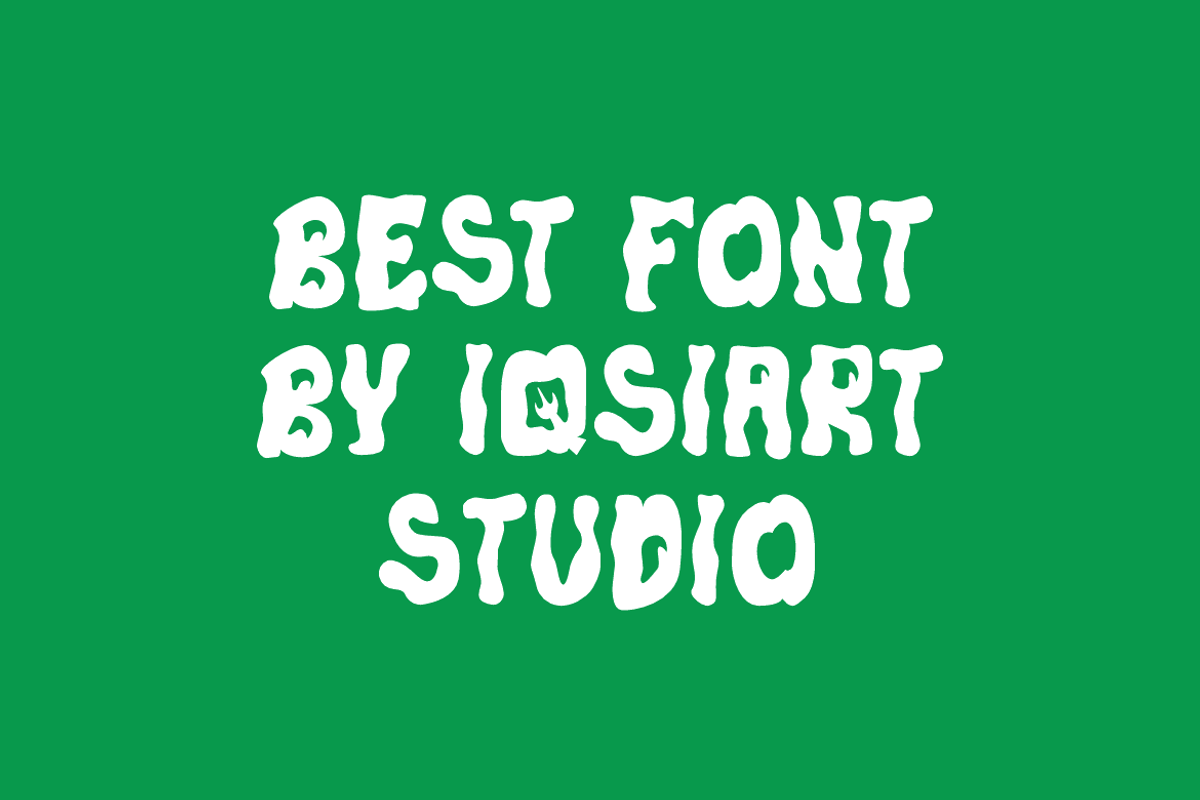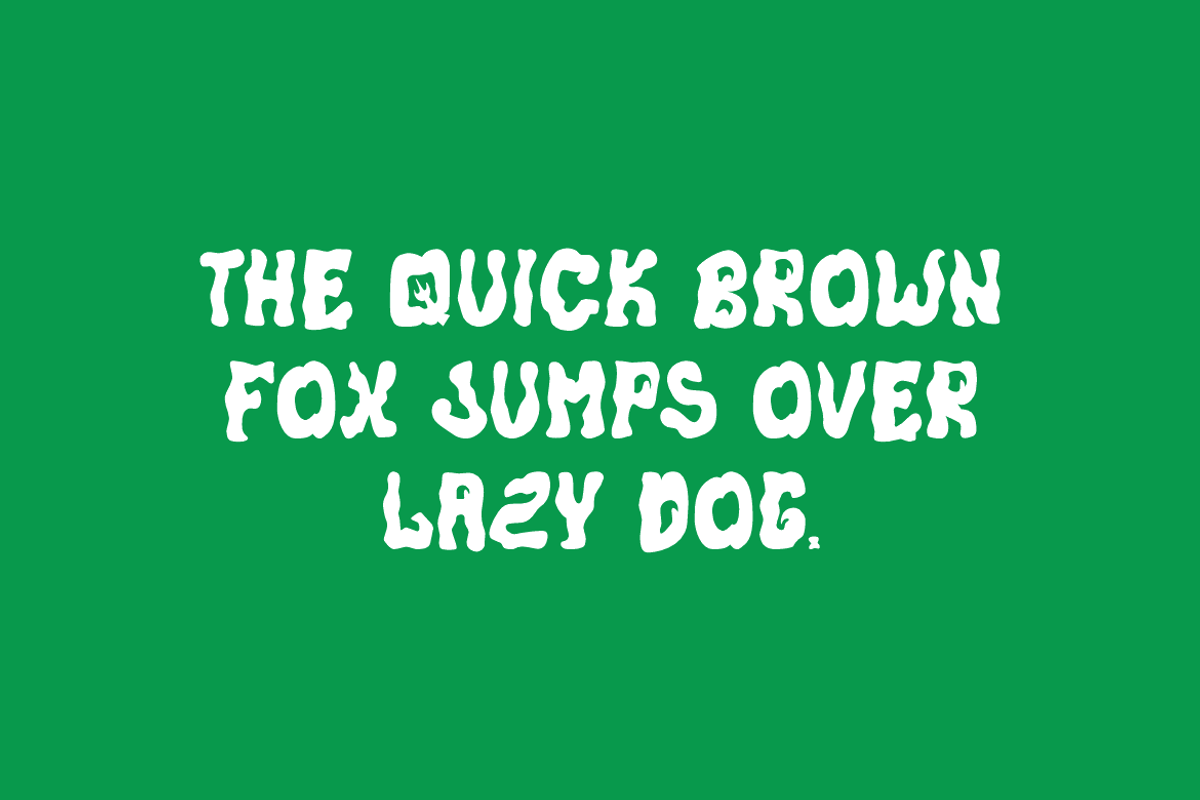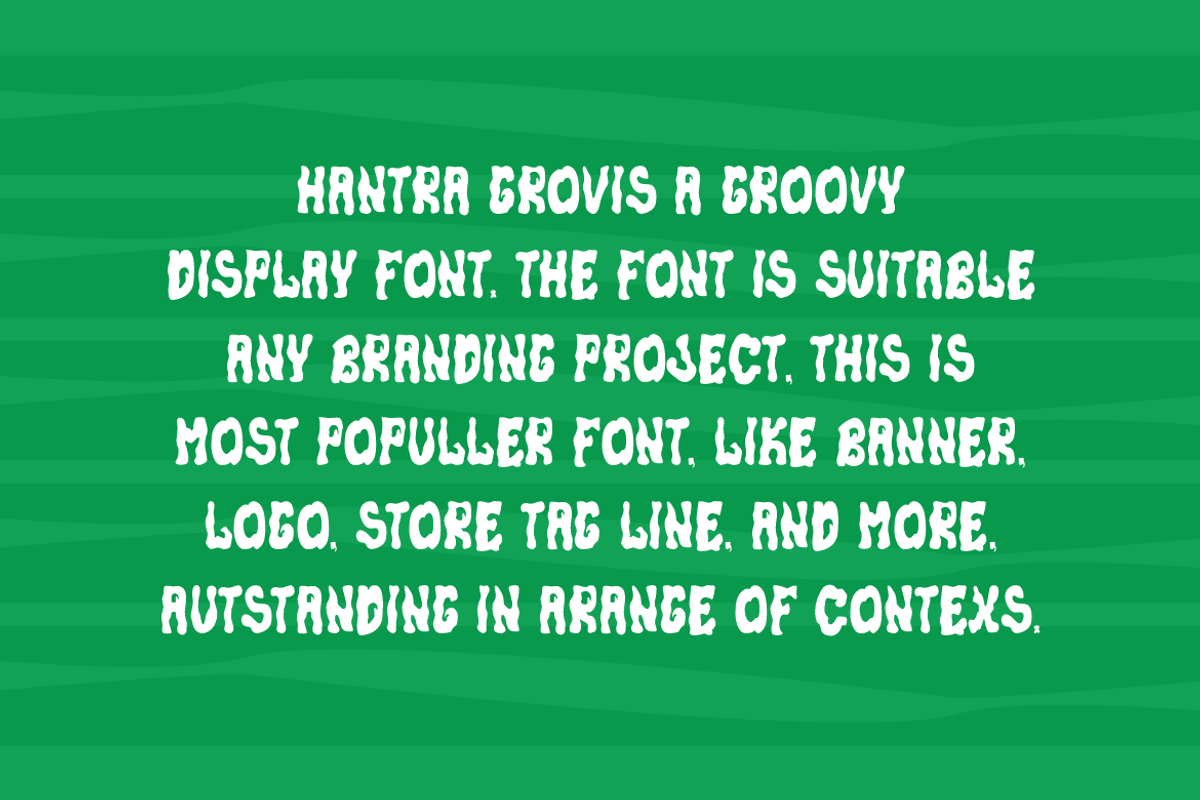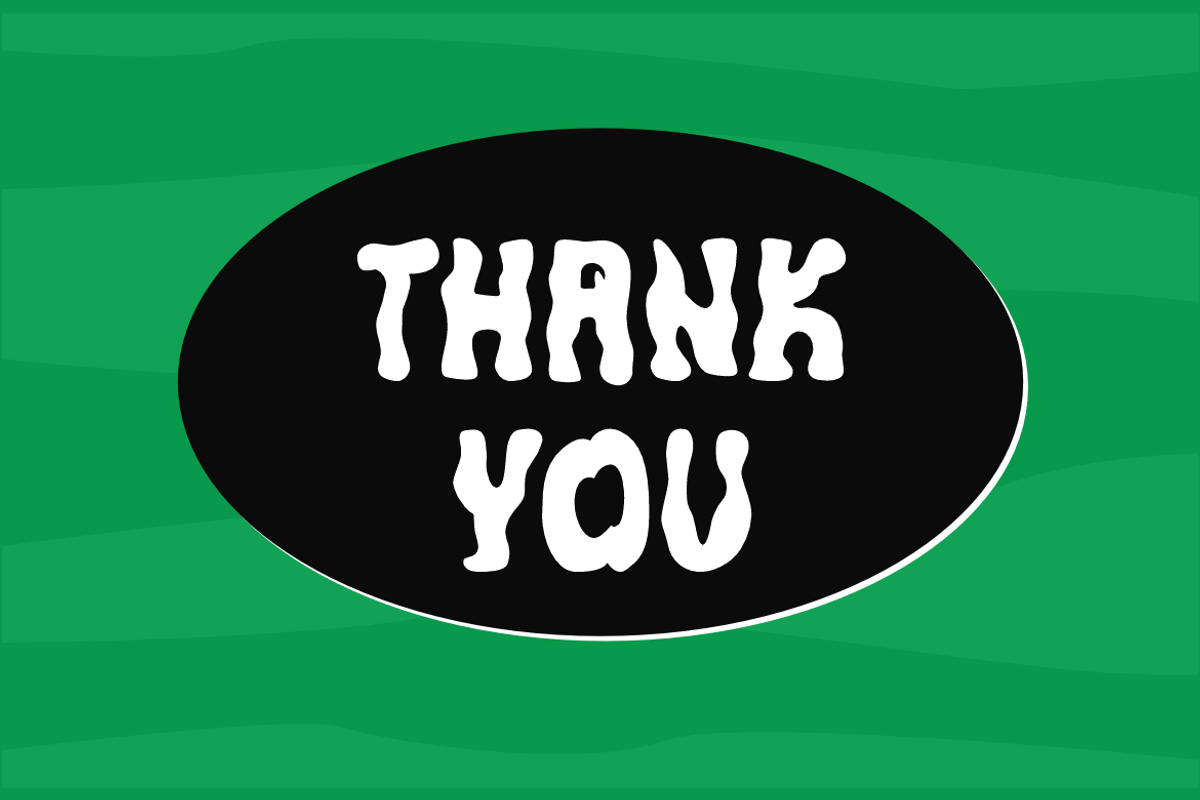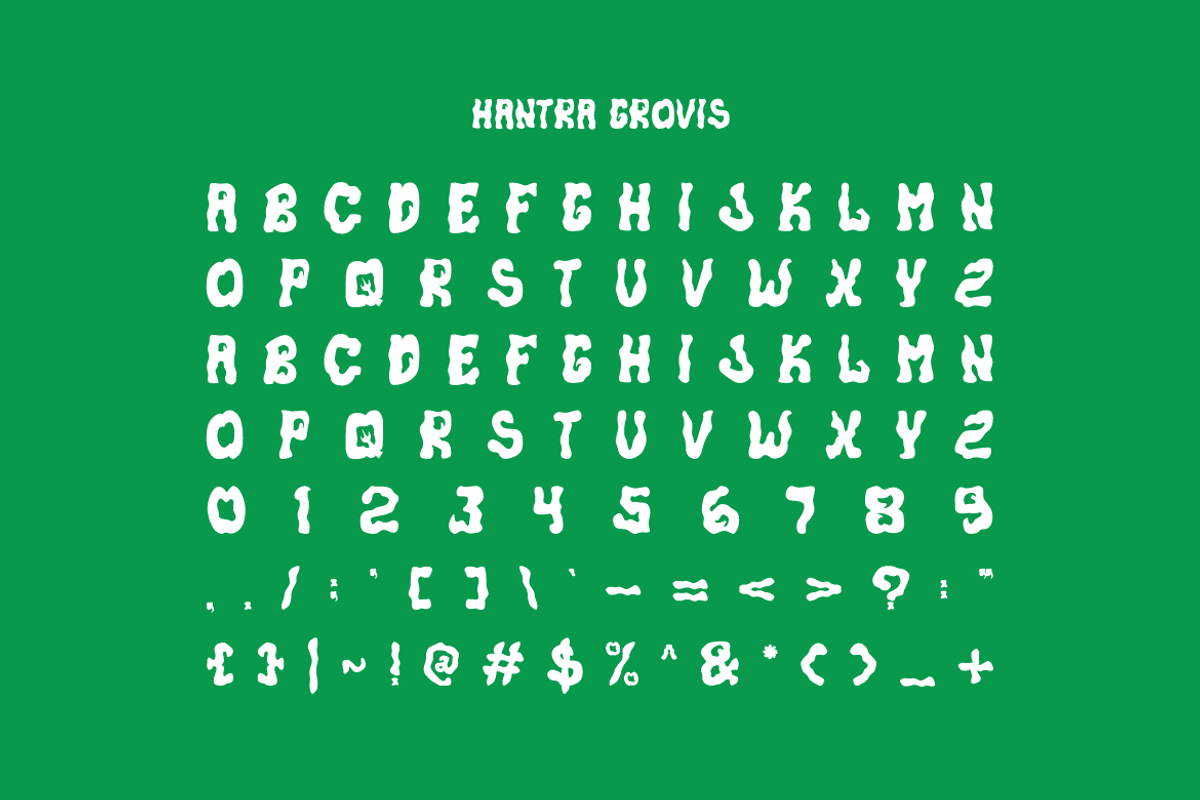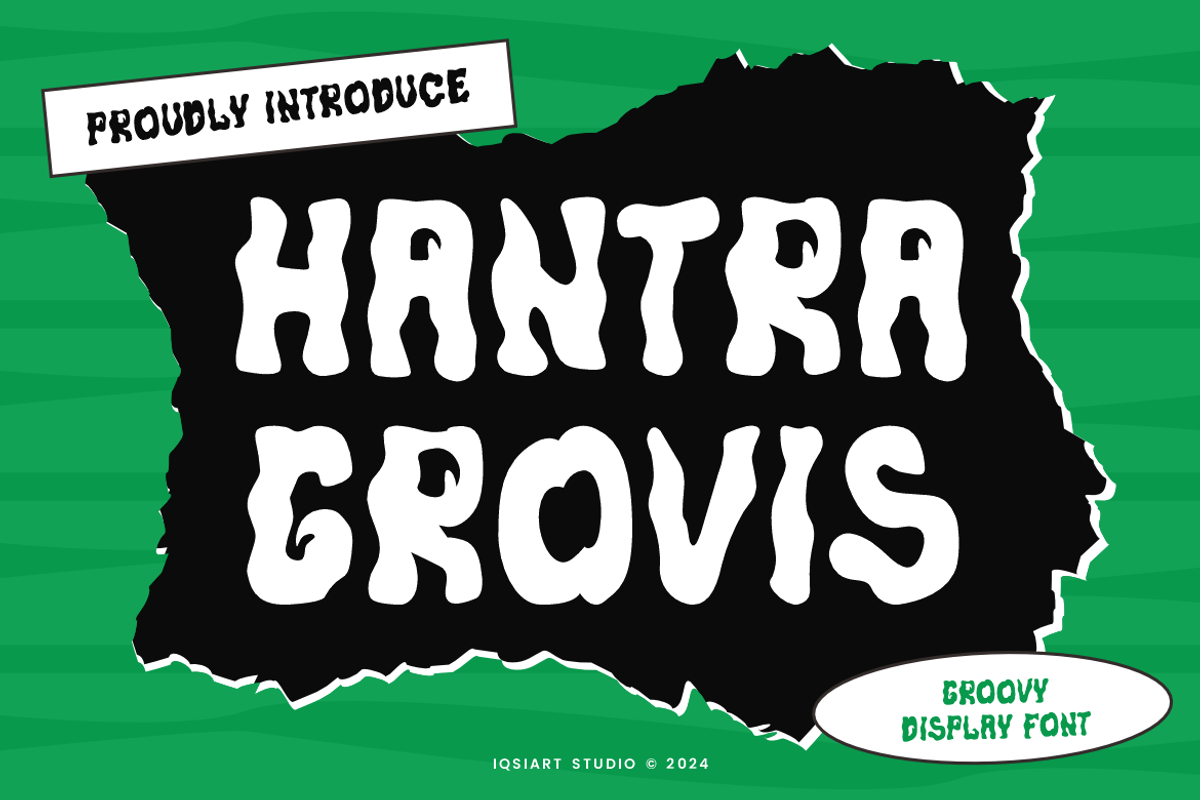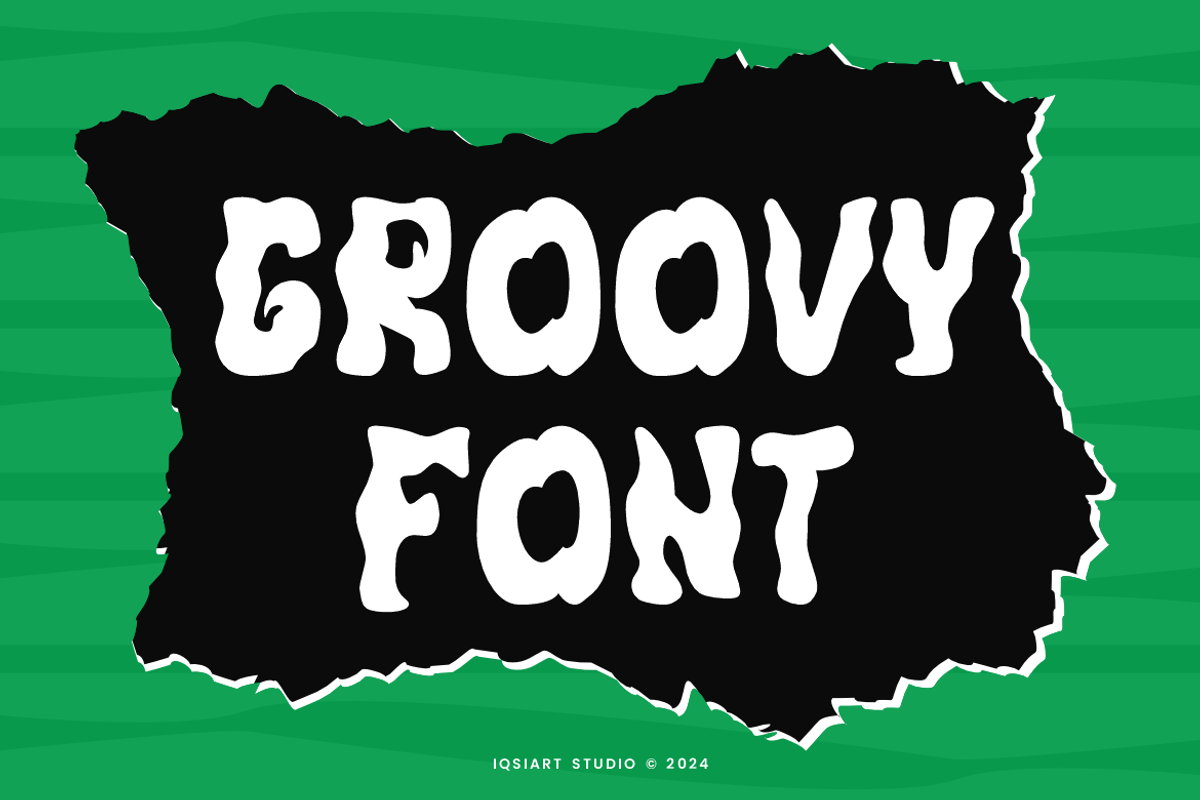
Hantra Grovis - Groovy Font
Hantra Grovis Font is a best and authentic display font. This font can be used for your various needs. We provide various themes and font styles. visit our profile to get a wide variety of themes and different font styles you need.